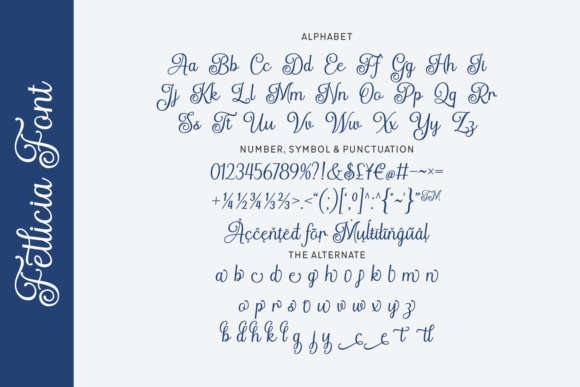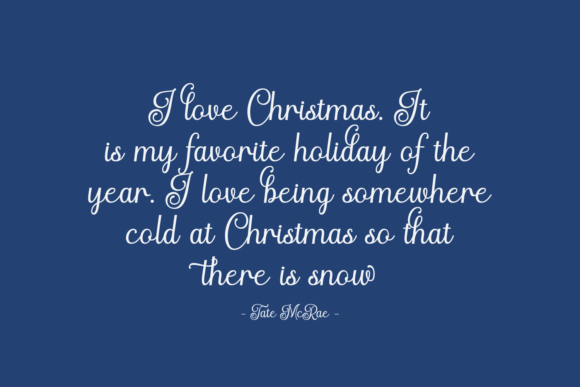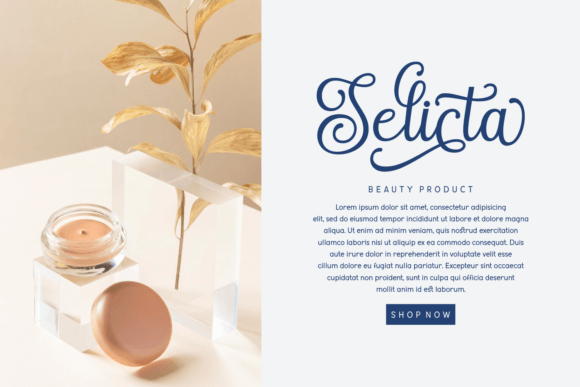
Introduction to Fetlicia Font
Fetlicia is a stylish aesthetic script font that blends modern sophistication with decorative swashes and loops.
Its graceful curves and bold yet elegant design make it ideal for logos, wedding invitations, branding, packaging, and social media posts Fetlicia brings a luxurious and polished feel to any project, perfect for those seeking beauty and creativity in their designs.
Fetlicia Font offers exceptional quality and versatility, making it a valuable addition to your design toolkit. Whether you’re creating for personal projects or commercial use, Fetlicia Font delivers professional results.